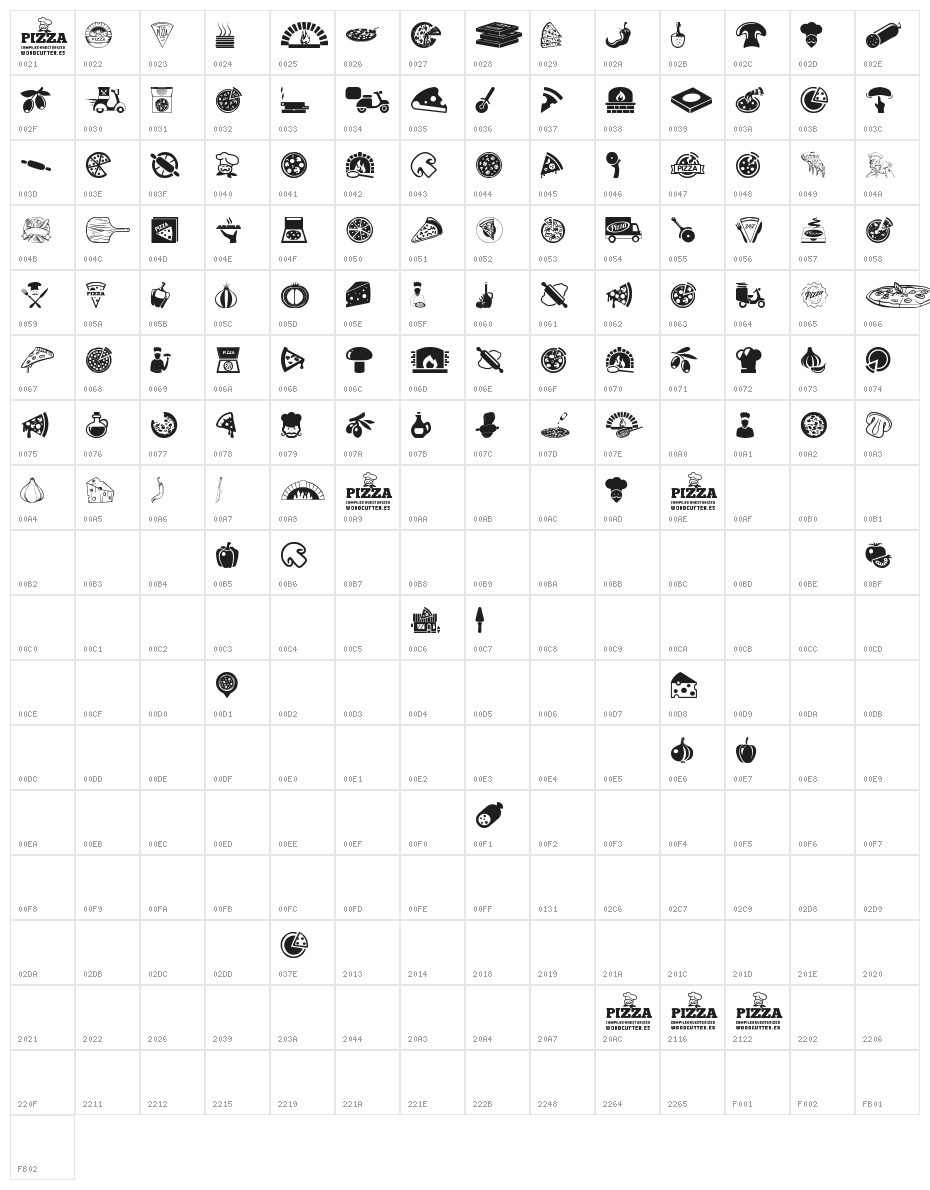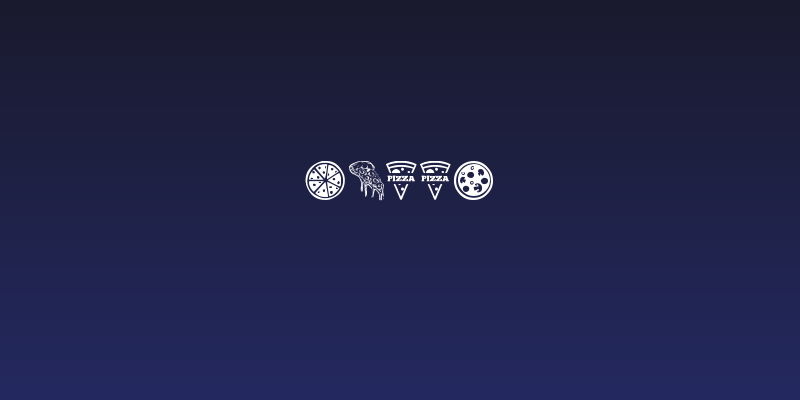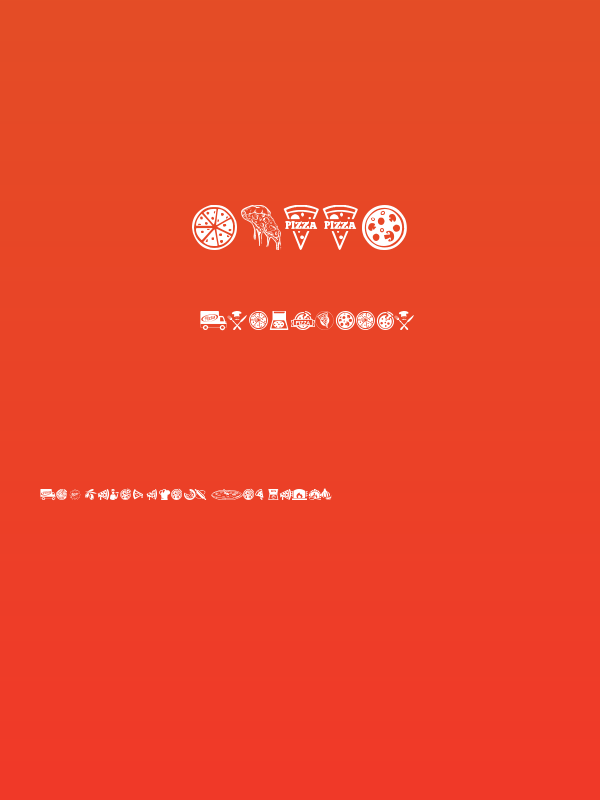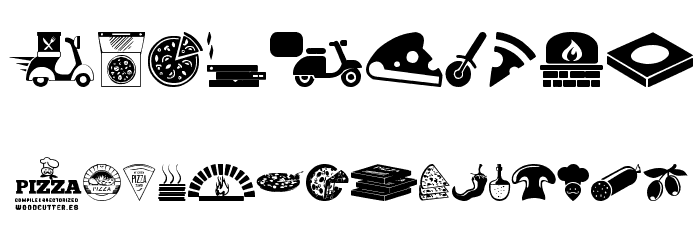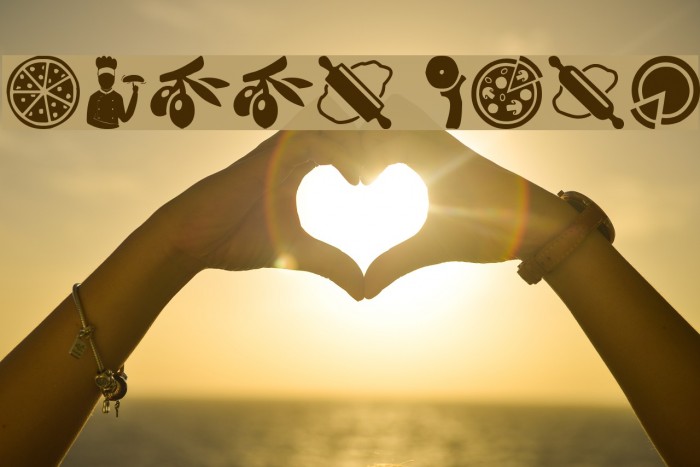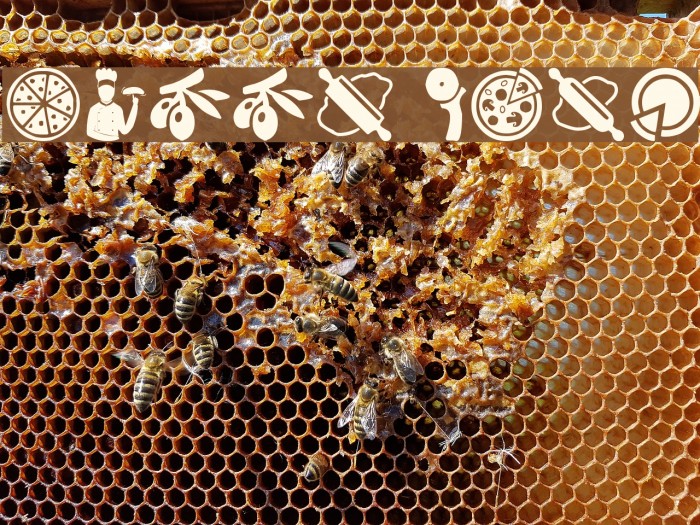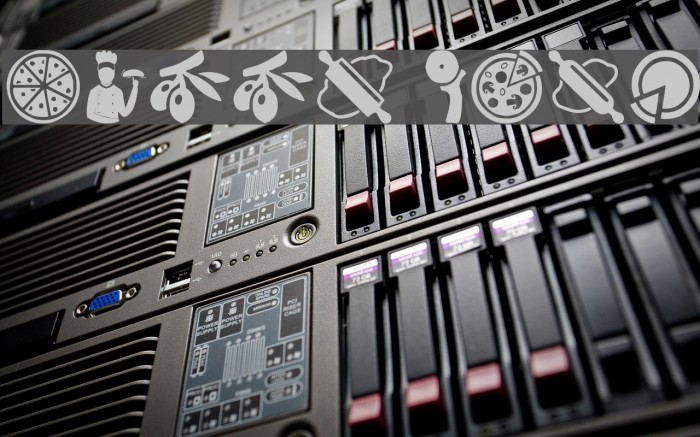
Pizza Font
Pizza Description
A decorative dingbat font featuring a wide variety of pizza-themed icons, including pizzas, slices, ovens, chefs, delivery scooters, ingredients, and utensils. The icons are bold, playful, and highly stylized, with both filled and outlined versions, making them suitable for thematic designs.
| Overall Style | Decorative, Playful, Thematic |
| Use Case | Logos, Icons, Themed headlines, Branding elements |
| Proposed Projects | Restaurant branding, menu design, food packaging, event flyers, social media graphics, children's materials. |